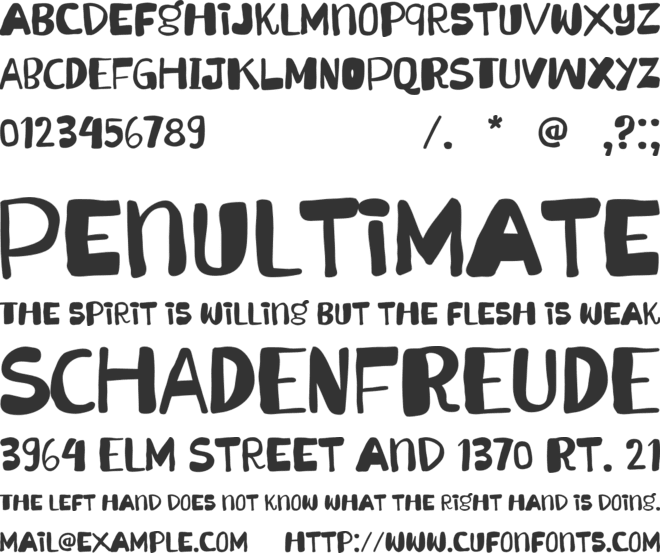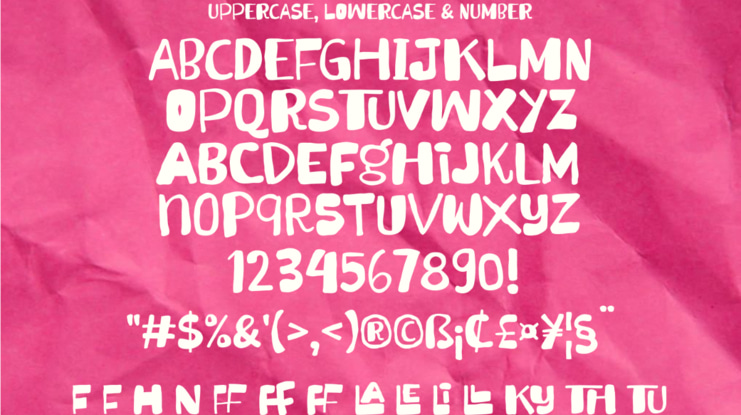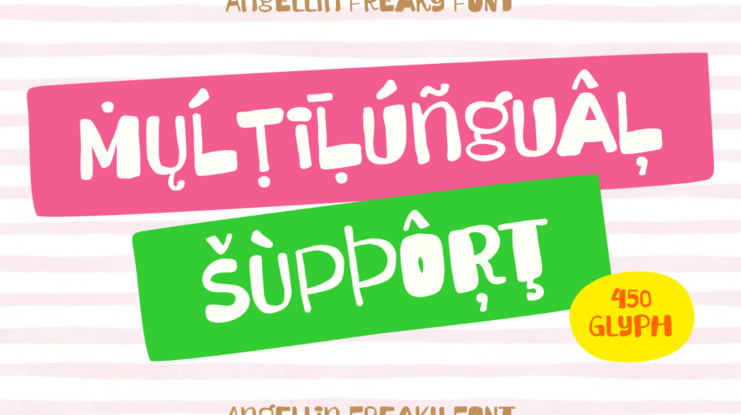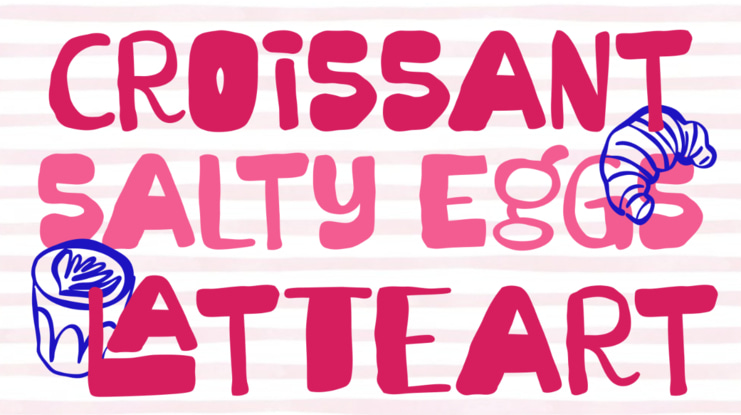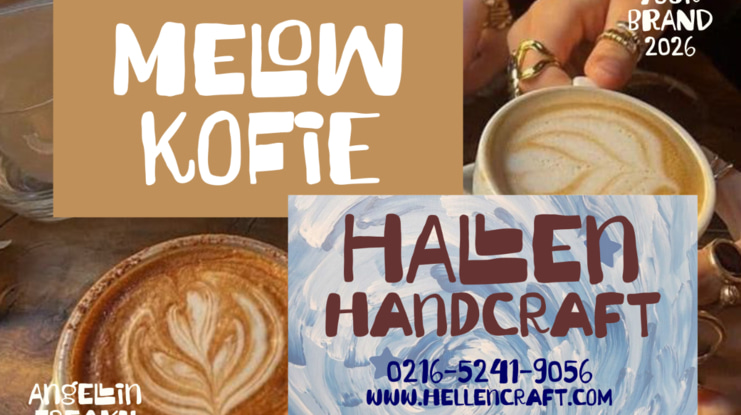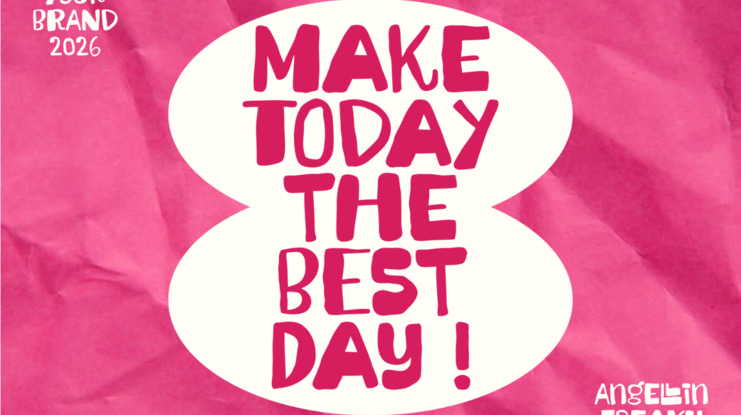
Angellin Freaky Font
Angellin Freaky - A Ugly Playful Font
Angellin Freaky is a weird, ugly, and playful display font made to break the rules and bring chaotic fun into your designs. With its quirky shapes, uneven letterforms, and intentionally awkward style, this font delivers a unique personality that instantly grabs attention.